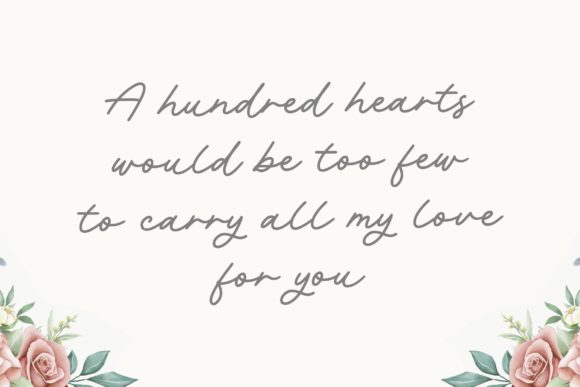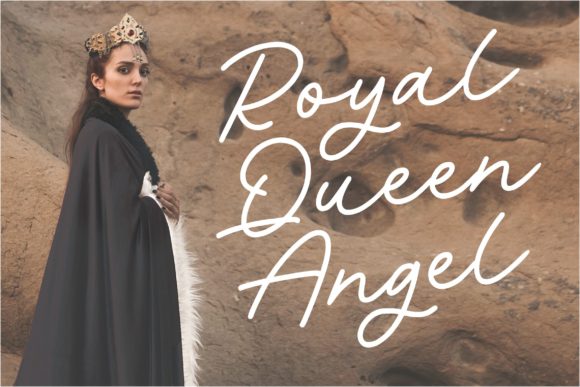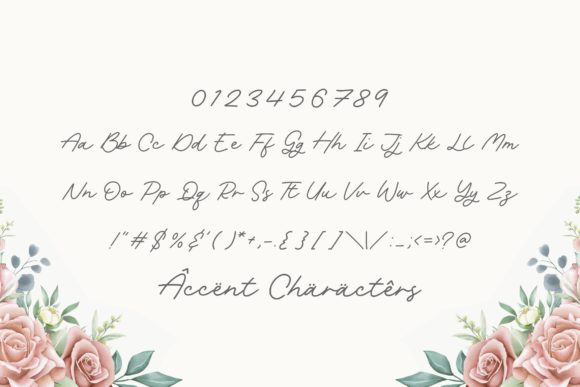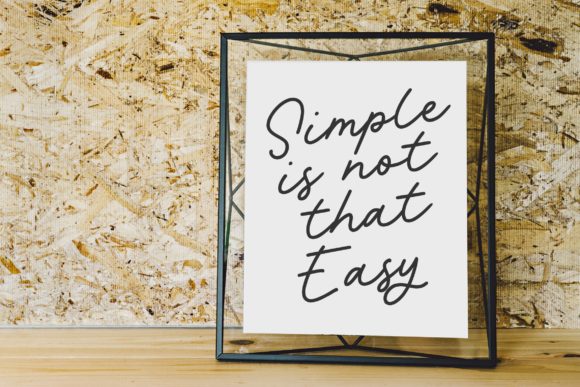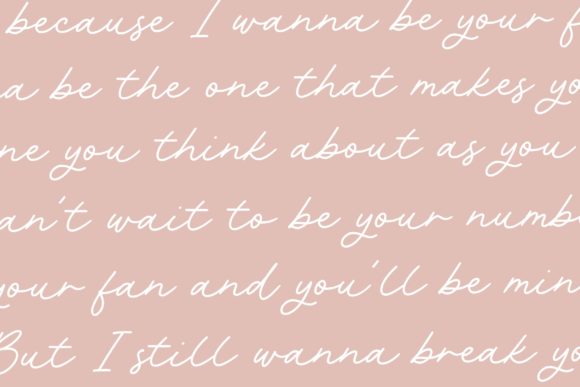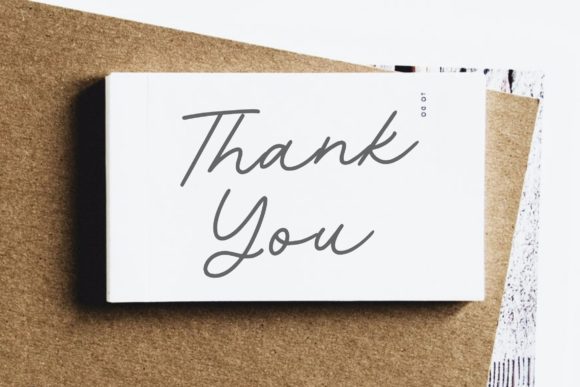
Introduction to Rachel Bowie Font
Rachel Bowie simplifies elegance into one truly outstanding handwritten font.
It maintains its classy calligraphic influences while feeling contemporary and fresh This versatility will appeal to a wide range of crafty ideas, from letterheads and titles, to stationery.
Key Features of Rachel Bowie Font
Why Choose Rachel Bowie Font?